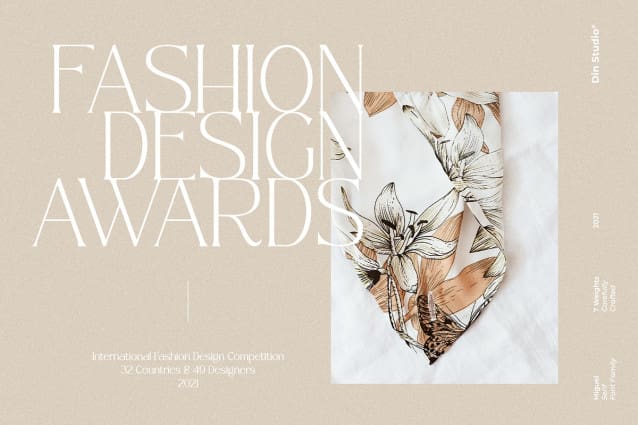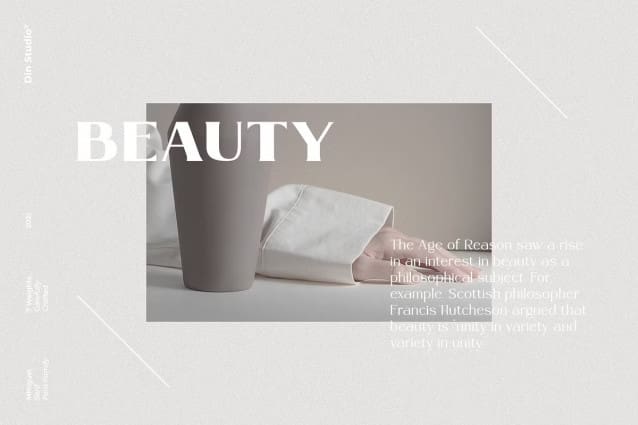
Miguel Font
Miguel Font – A Serif Font Family. With this package you will get many options to maximize your designs with stylish fonts. The font paves the way for you to write the information you need to send out to your audience. The variety of weights provide a range of choices that will help you find the best typographic character for your project. Make your projects to works of art, conveying your intentions clearly with the font!